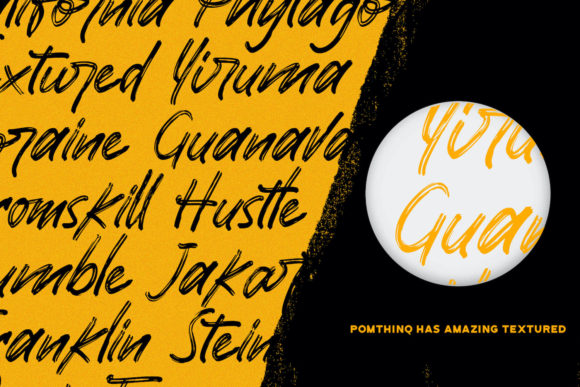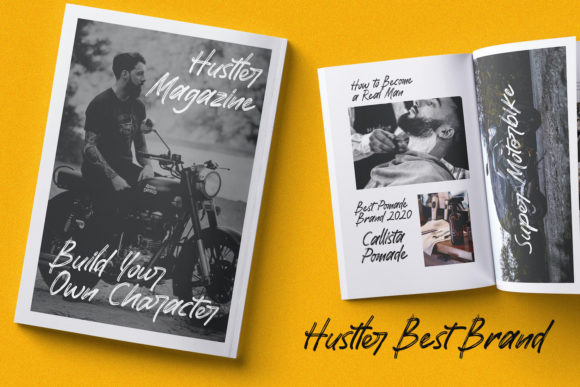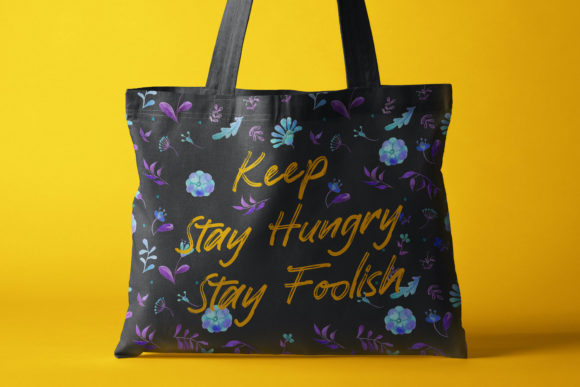
Introduction to Pomthinq Font
Have you ever stared at a blank canvas, waiting for inspiration to strike? For designers, this moment is all too familiar. But what if you had the perfect tool to spark your creativity? Enter the Pomthinq Font, a stunning brush script font that’s about to revolutionize your design projects.
This incredible font is more than just a design resource – it’s a game-changer. With its unique, high-quality style, you’ll be able to create breathtaking designs that stand out from the crowd. Whether you’re working on a creative project or just need a versatile font for your next design, Pomthinq Font is the perfect choice.
Key Features of Pomthinq Font
- High-quality, professional design suitable for various creative projects, including graphic design, digital art, and publishing.
Honest Review: Pomthinq Font
- ✨ Unique and creative design that adds a touch of sophistication to any project
- ✨ Highly customizable, making it perfect for a wide range of creative projects
- ✨ Supports a transparent background, giving designers more flexibility when working with layered designs
- ⚠️ Limited character set, which may not be suitable for longer texts or complex projects
- ⚠️ Some users may find the font too ornate or busy for certain designs
Overall, I’m impressed with the Pomthinq Font. Its unique design and high-quality features make it a valuable addition to any designer’s toolkit. If you’re looking for a free and creative font to elevate your next project, I highly recommend giving Pomthinq a try.
Pomthinq Font
The Pomthinq Font is perfect for creative projects such as wedding invitations, business cards, and brochures. Its elegant and sophisticated design makes it ideal for luxury brands and high-end products. Whether you’re a professional designer or a DIY enthusiast, the Pomthinq Font is a valuable design resource that can elevate your projects to the next level.